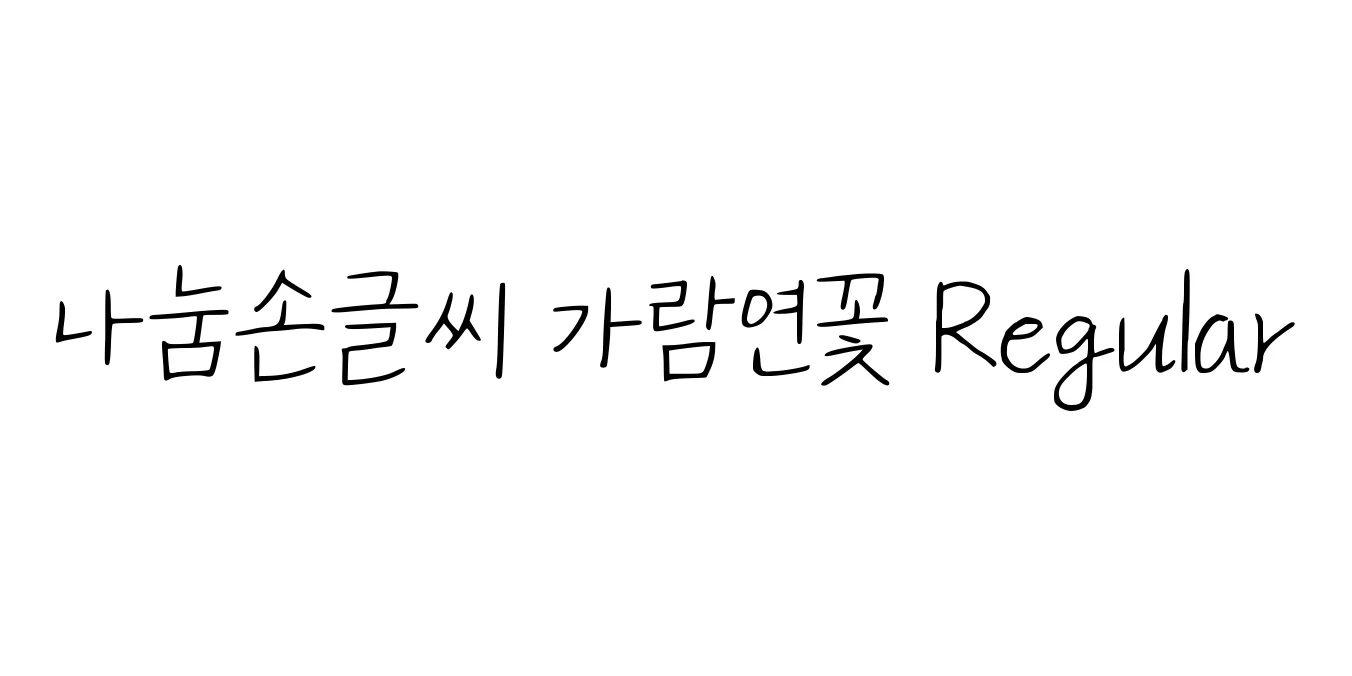
나눔손글씨 가람연꽃 Regular
Designed by Naver (Garam Yeon-kkot)
Nanum Handwriting Garam Yeon-kkot is a unique Korean typeface released as part of the 10th-anniversary Hangeul Campaign by Naver in 2019. This specific font was captured from the actual handwriting of a participant named Garam Yeon-kkot and was meticulously refined using AI technology to create a functional digital typeface that retains the authentic warmth and rhythm of human hand-written letters.
The design features a slender, graceful flow that evokes the sensation of writing with a fine pen or a light brush. Its Regular weight provides excellent legibility for a script font, making it a popular choice for digital storytelling, journaling, and expressive content that requires a gentle, organic, and emotional aesthetic.
나눔손글씨 가람연꽃 Regular Best Uses
Perfect for creating personalized e-cards, digital letters, or emotional invitations.
Enhances Instagram stories, Pinterest pins, or blog headers with a natural, human-centric feel.
Ideal for book covers, poetry collections, or inner page highlights that need a delicate touch.
Great for lifestyle blogs and community forums to provide a friendly and approachable tone.